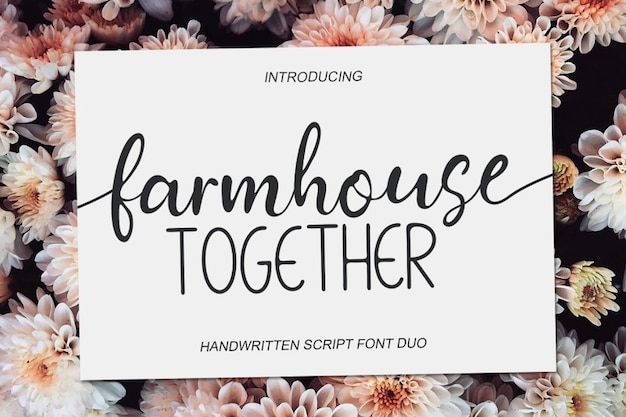
Farmhouse Together Font
Farmhouse Together font is like a cozy handwritten note from the countryside, blending calligraphy with rustic charm. It's lettering that feels like a warm hug, with each stroke echoing the simplicity of farmhouse living. Perfectly imperfect, it adds that homey touch to your designs, infusing them with the warmth and authenticity of handcrafted calligraphy.